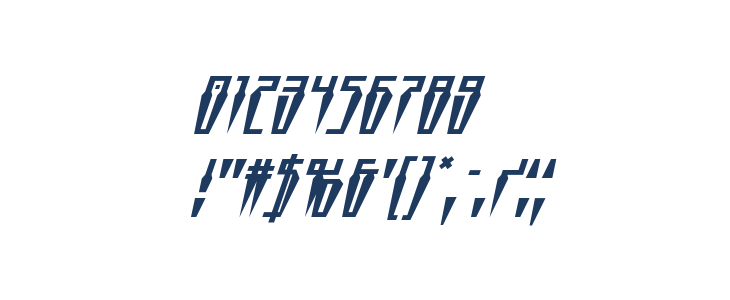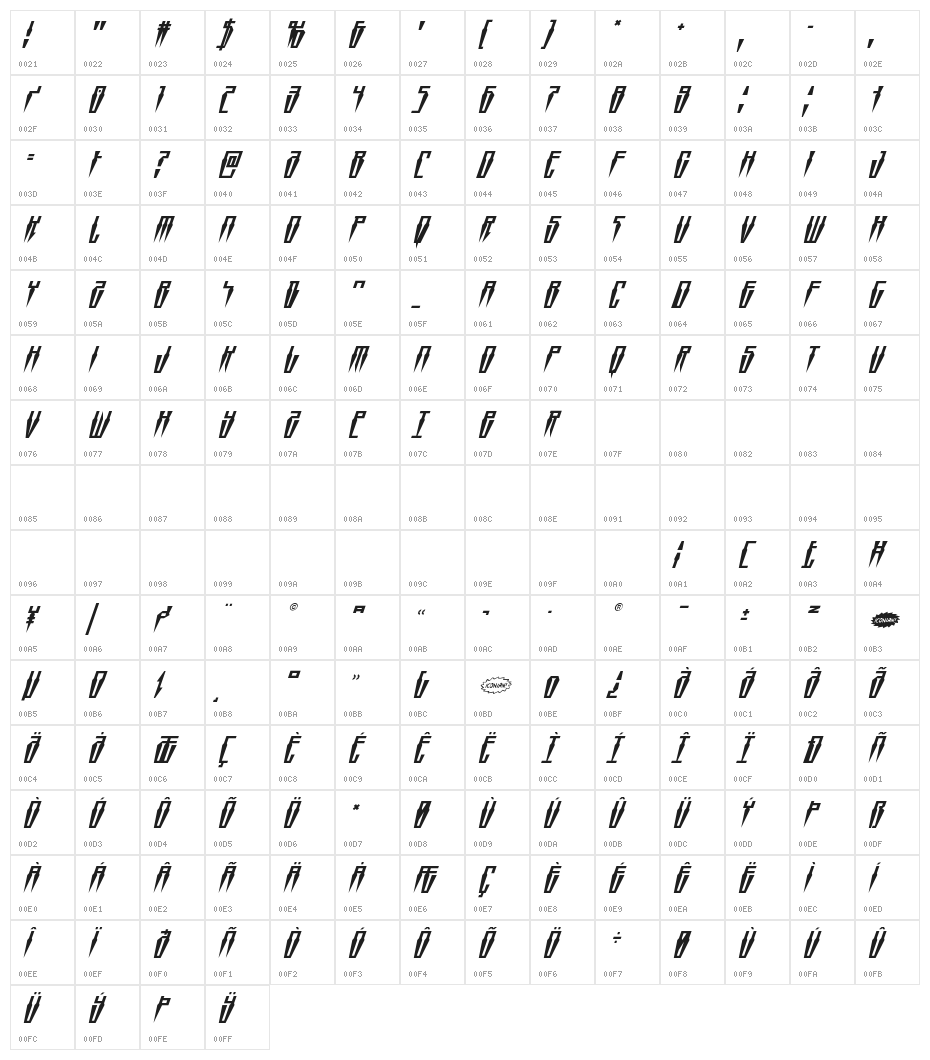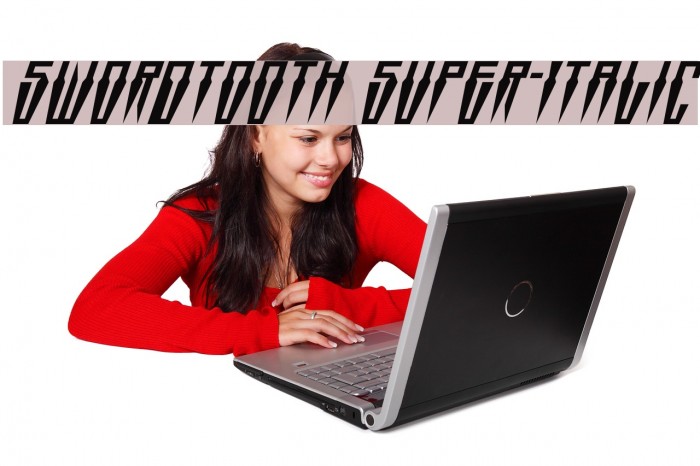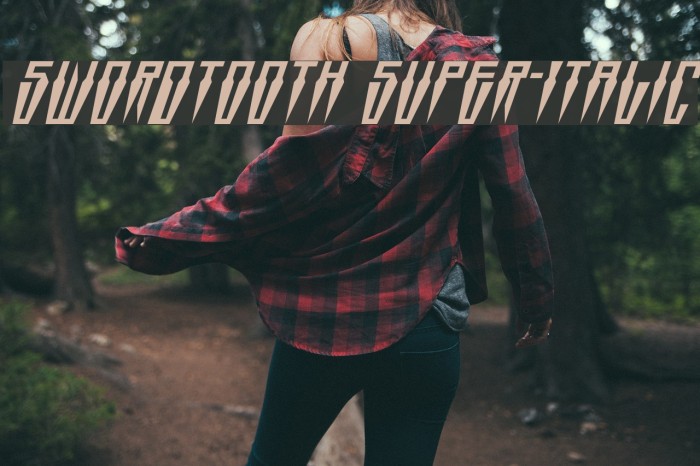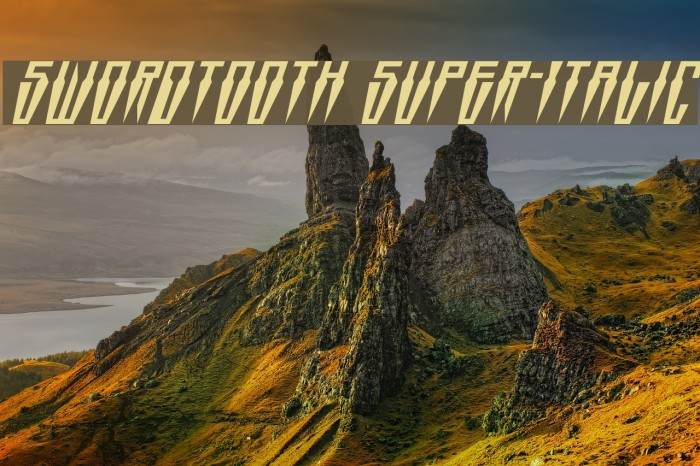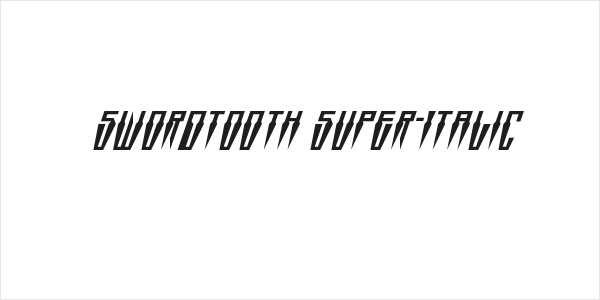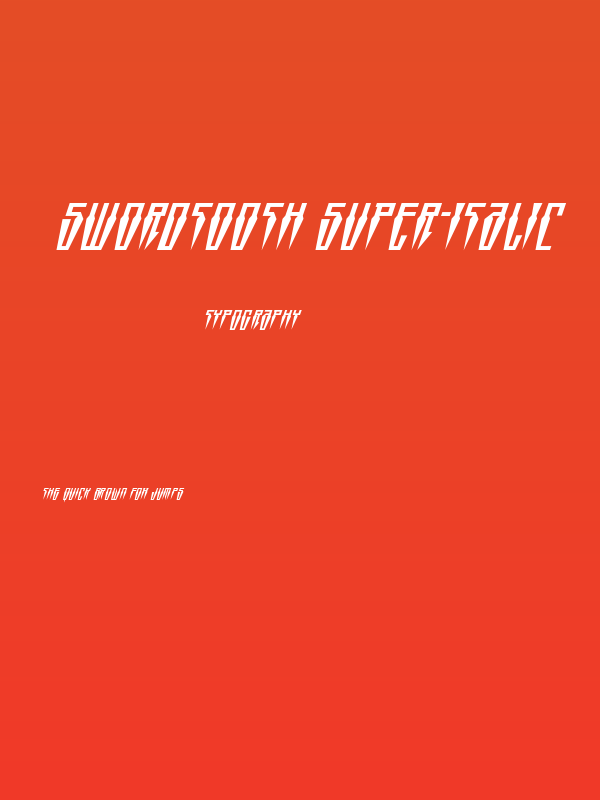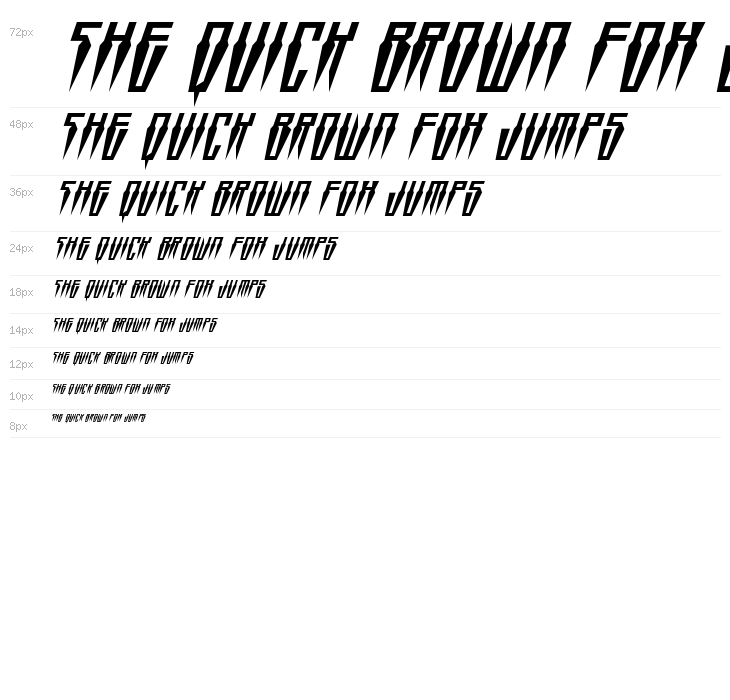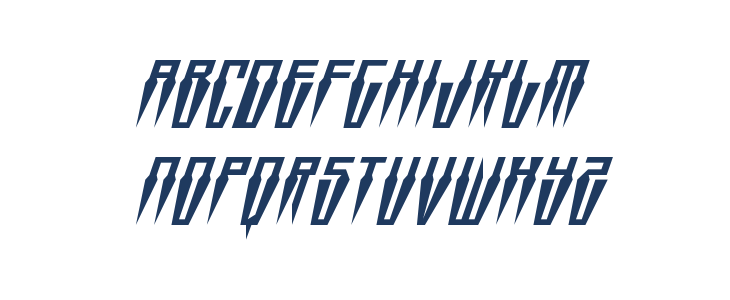
Swordtooth Super-Italic Font
Swordtooth Super-Italic Description
This font features a striking, angular design with sharp, elongated serifs that give it a dynamic and aggressive appearance. The characters are heavily slanted, emphasizing a sense of motion and speed. The bold strokes and pointed terminals create a dramatic visual impact, making it ideal for attention-grabbing headlines or branding that requires a strong, edgy presence. The uppercase and lowercase letters maintain a consistent style, with numerals and special characters following suit, ensuring a cohesive look across all text elements.
| Proposed Projects | Ideal for sports branding, action movie posters, video game titles, and edgy logo designs. |